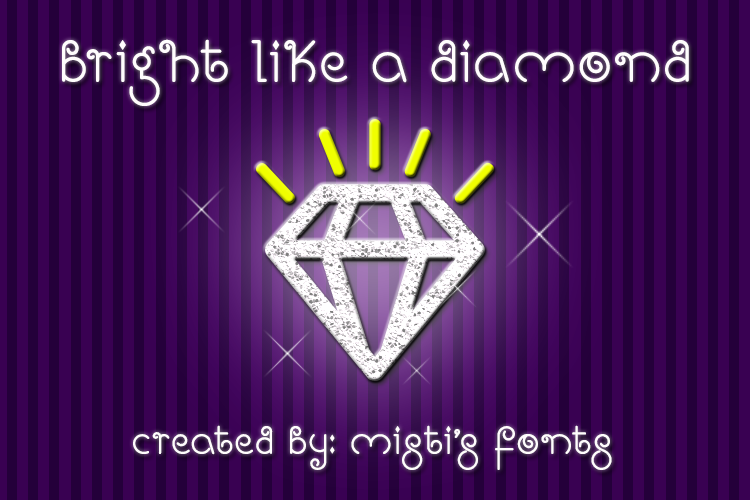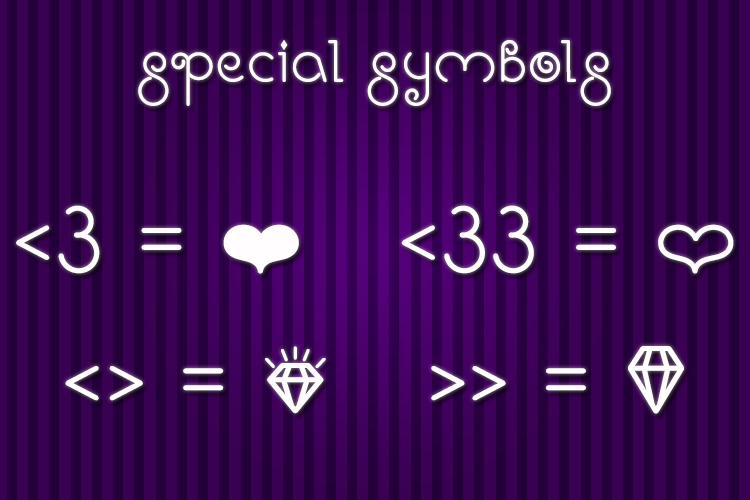
Bright Like A Diamond
Introducing "Bright Like A Diamond," a whimsical lowercase display typeface that effortlessly combines playful elegance with a touch of sophistication. This font boasts striking bold curls and meticulously crafted letterforms that are designed to capture attention and spark creativity.
What sets this typeface apart are the delightful extras it brings to your toolkit: a collection of charming diamond and heart symbols, thoughtfully PUA encoded for effortless access. These symbols add a delightful touch of whimsy to your designs, making them ideal for projects that require a dash of personality and uniqueness.
Whether you're working on craft projects, designing eye-catching graphics, or creating anything in between, "Bright Like A Diamond" stands ready to infuse your work with brightness and creativity. Embrace this versatile typeface, and watch as it elevates your design endeavors, bringing a radiant and joyful energy to everything you create.